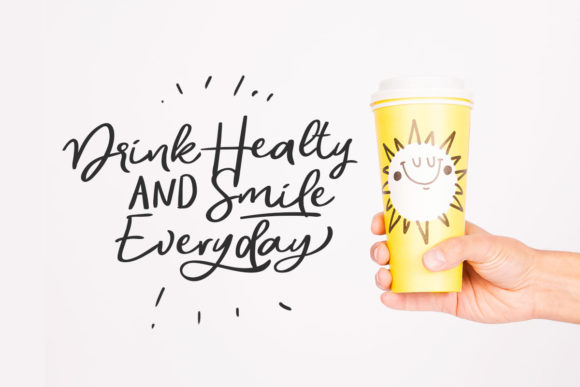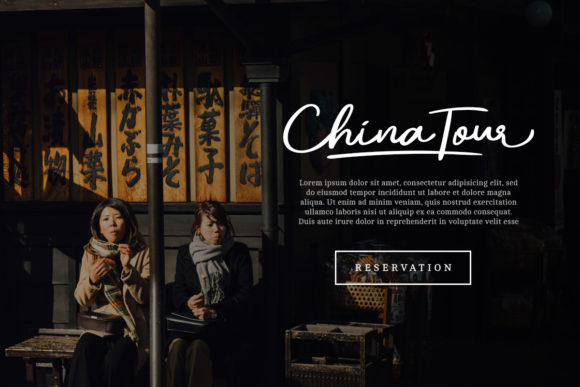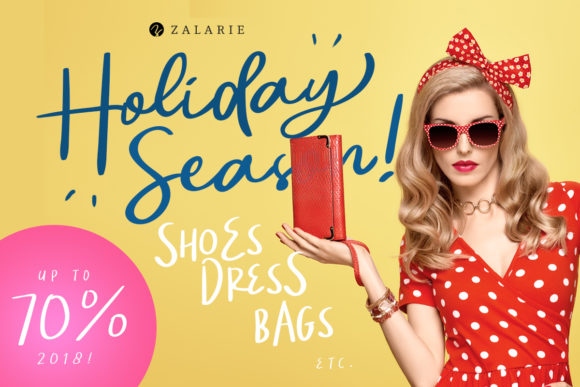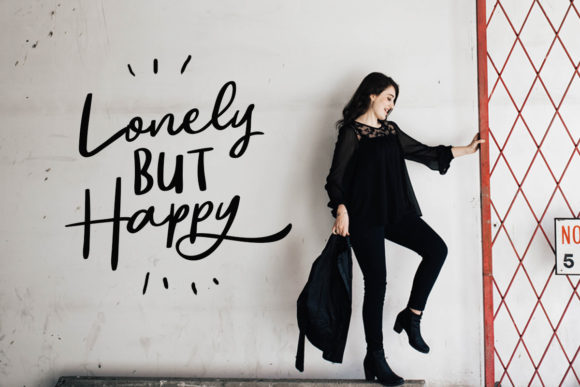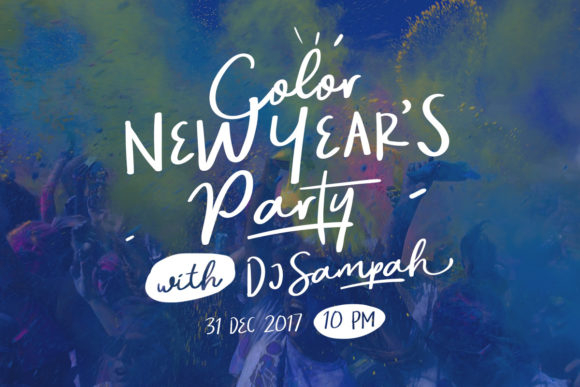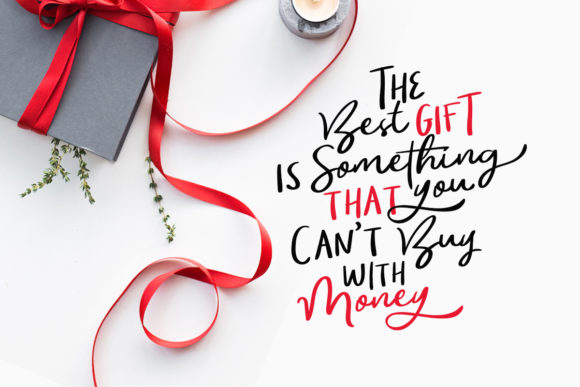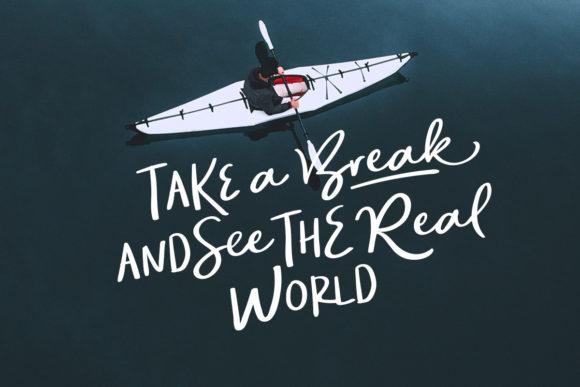
Historia Sky Duo Font
The Historia Sky is an elegant font duo which comes in a script and sans version. It has a great readability and will add a striking, yet cute feel to your designs.